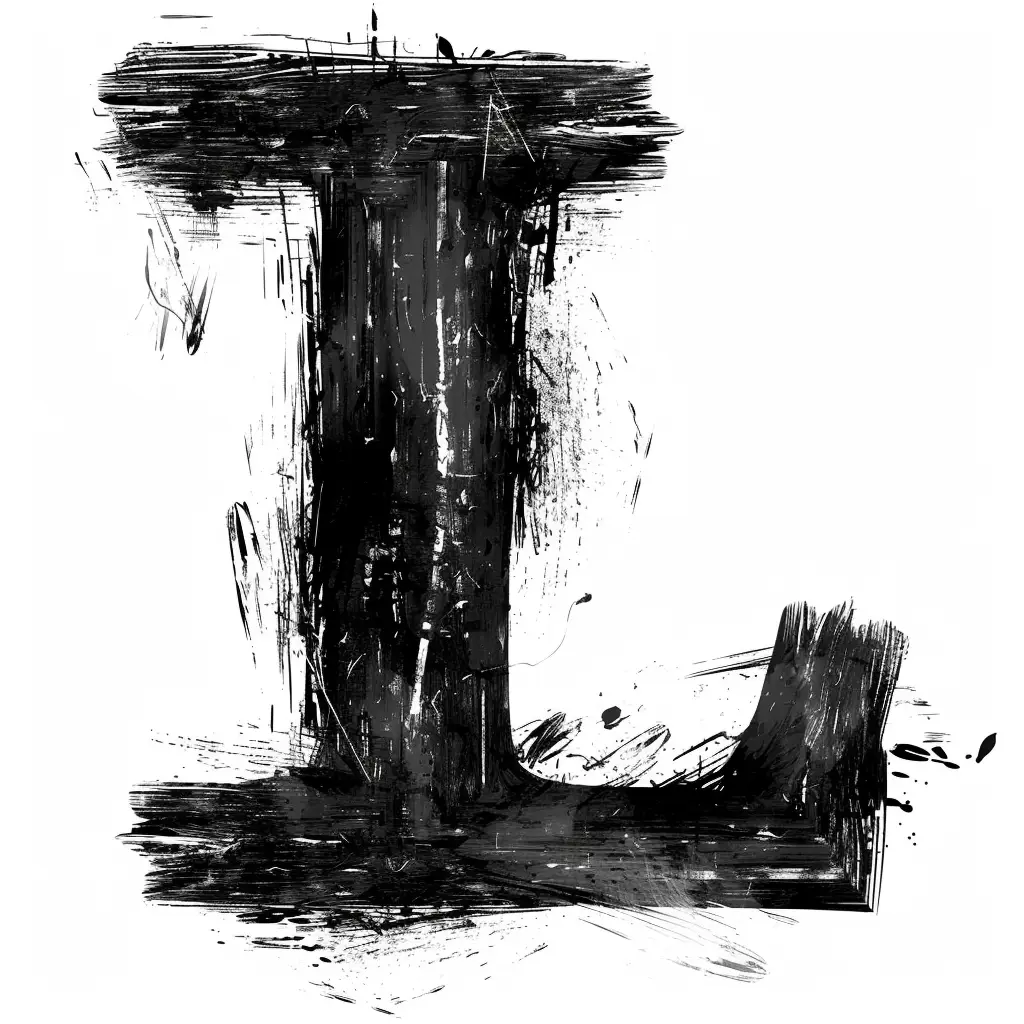
This image features a stylized, abstract representation of the letter "L" rendered in a rough, brushstroke-like style. The design uses bold black ink against a white background, with textured, uneven strokes and splatters creating a dynamic, artistic effect. The letter’s form is defined by thick, layered lines and a gritty, expressive aesthetic that emphasizes texture and movement.